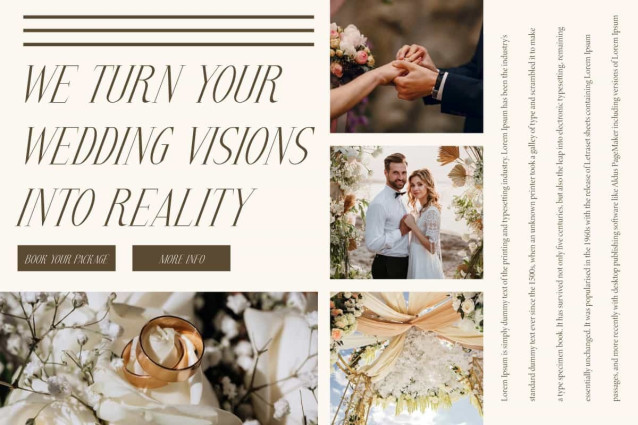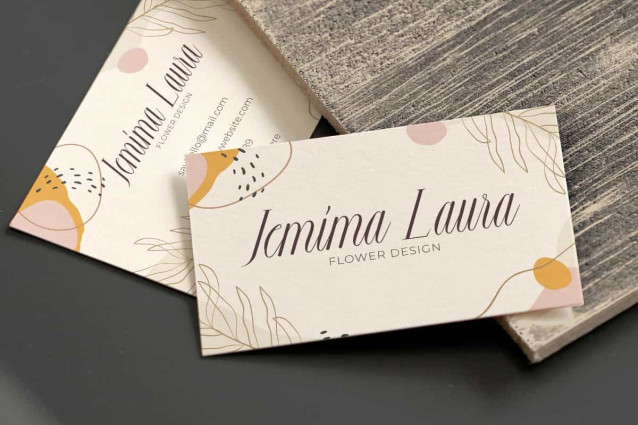
White Elovie Font
White Elovie Font is a thin and luxurious serif display font. This font has an elegant style with a subtle calligraphic touch. It will be perfect for any projects, such as advertising, brand image, cover, custom design, invitation, label, layout design, quotes, signage, stationery, template design, website, and many more!
White Elovie Font includes a complete set of Uppercase and Lowercase Basic Characters, Numbers, Punctuation, and Symbols. This font also contain Ligature and Swoosh characters that make the appearance smoother and aesthetic, suitable for various industries, such as accessories and jewelry, advertising, beauty content, cafe, event or wedding organizer, fashion, florist, furniture, photography, etc.